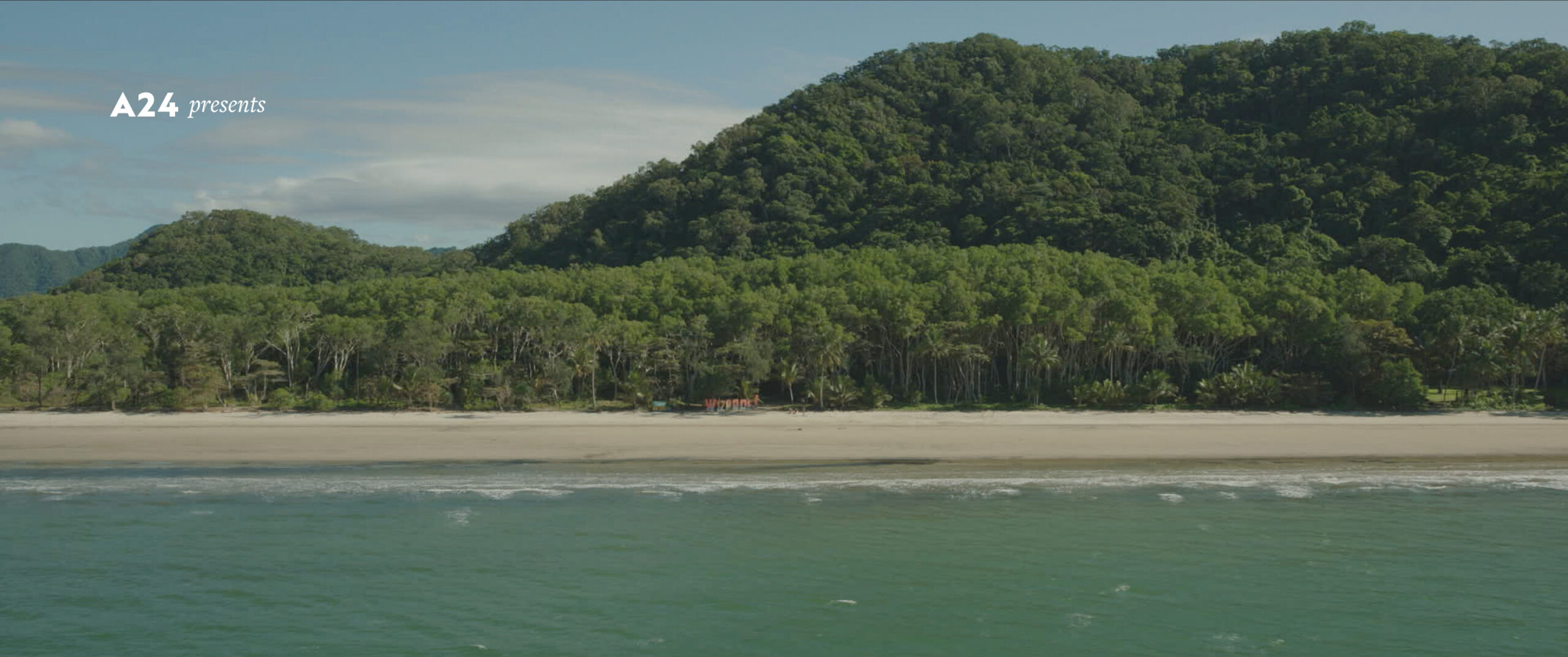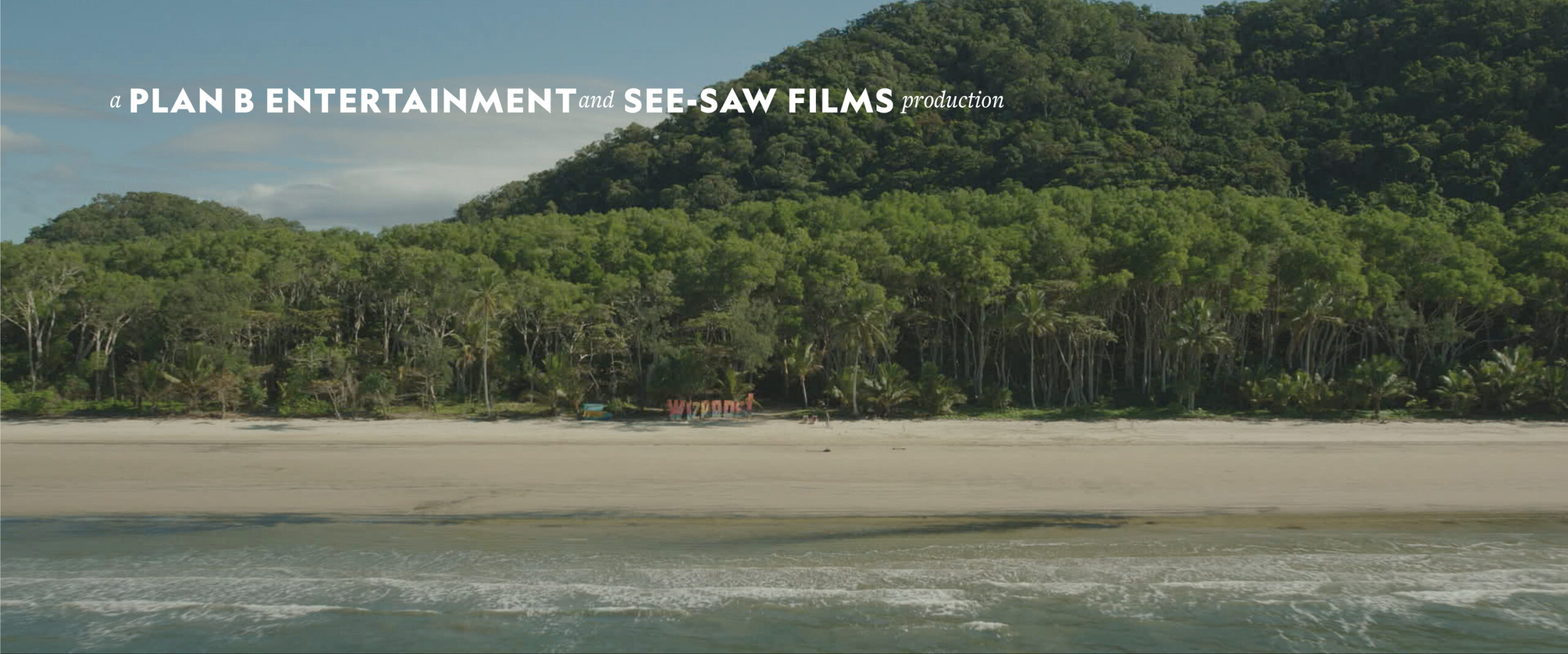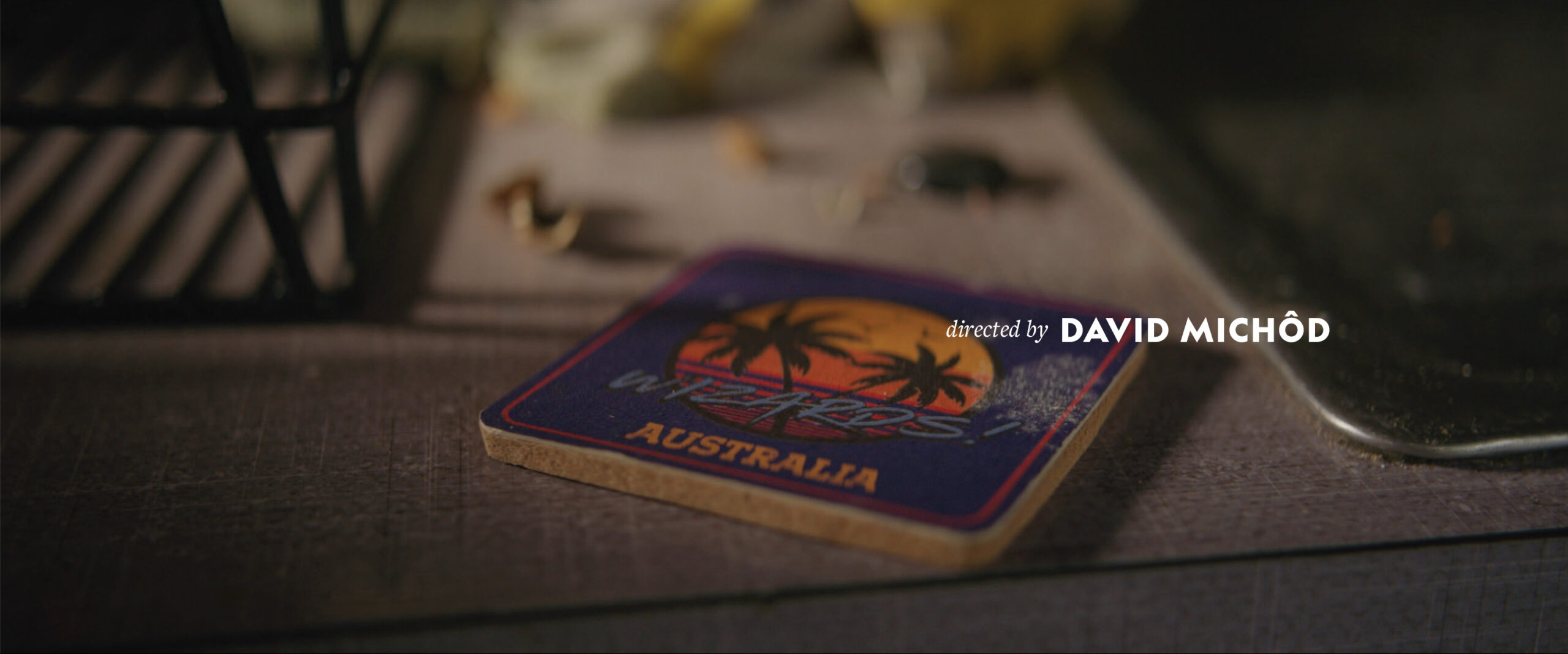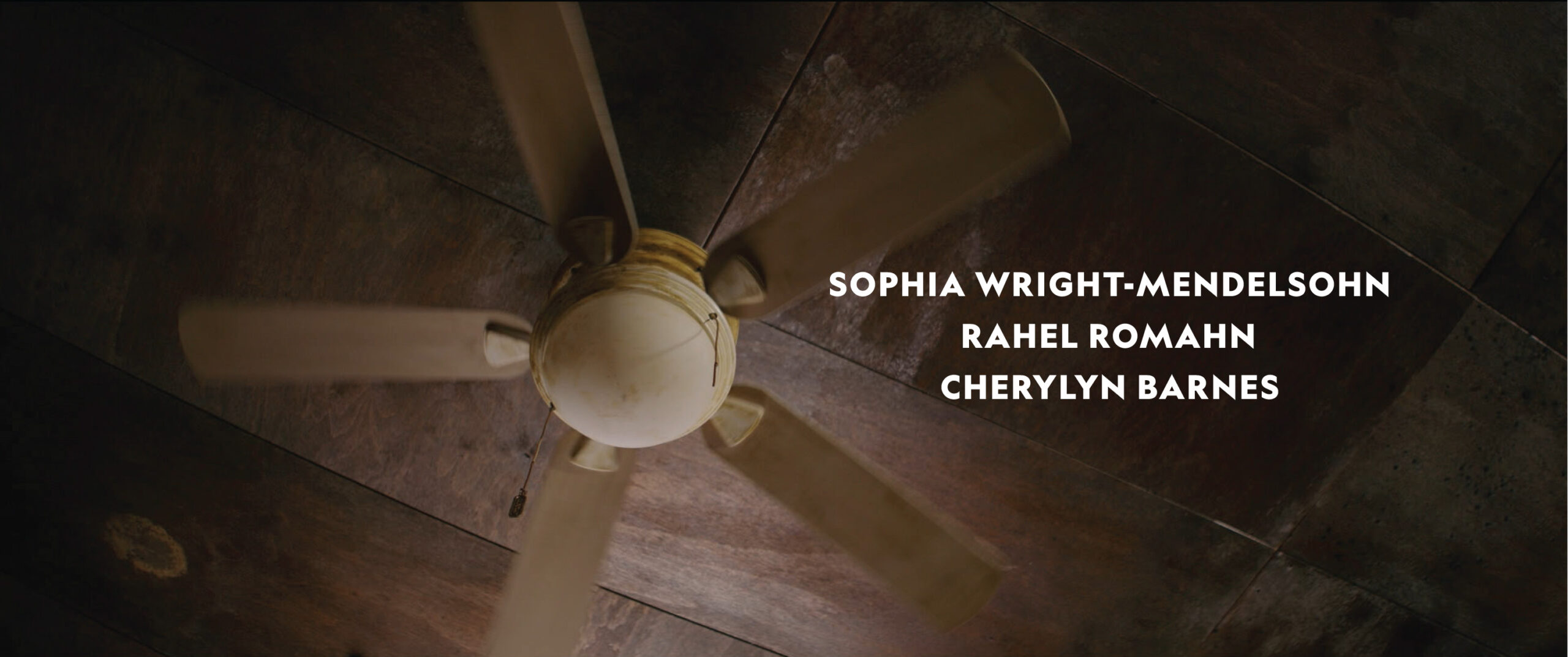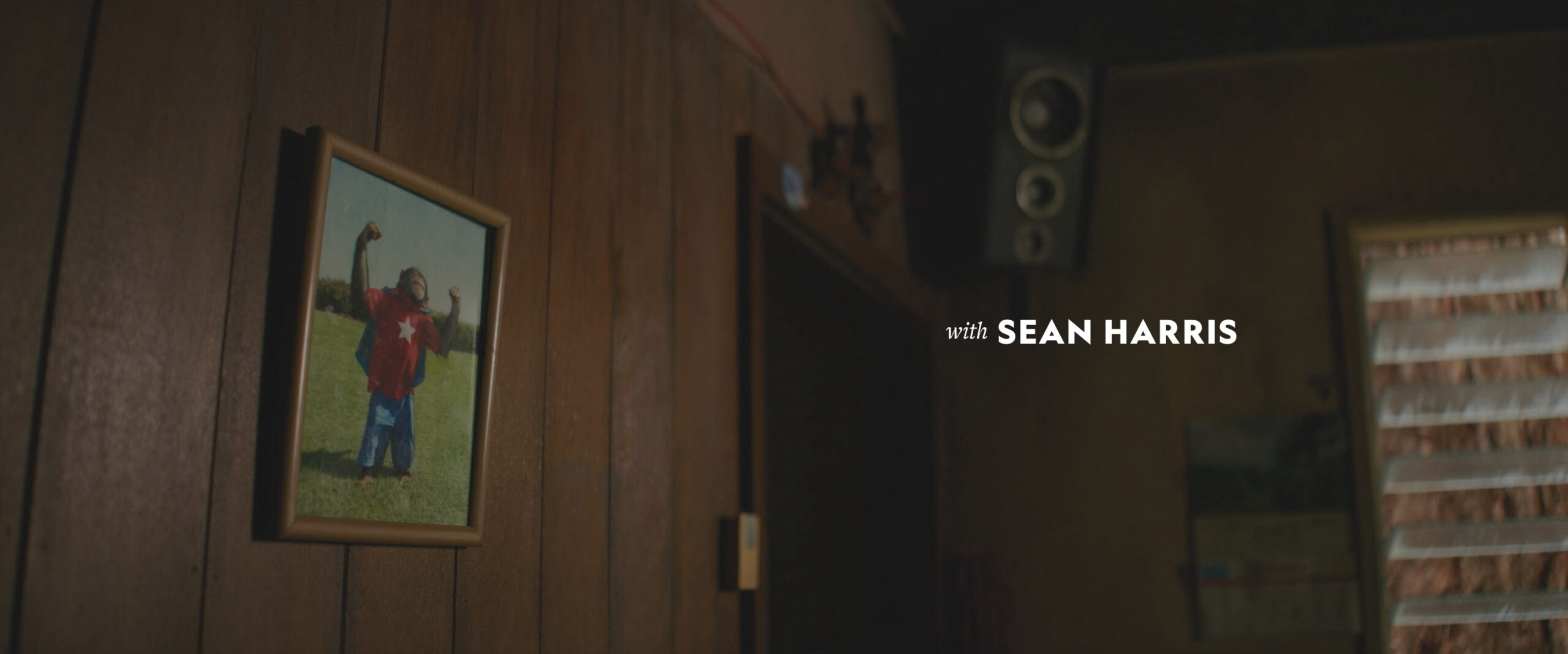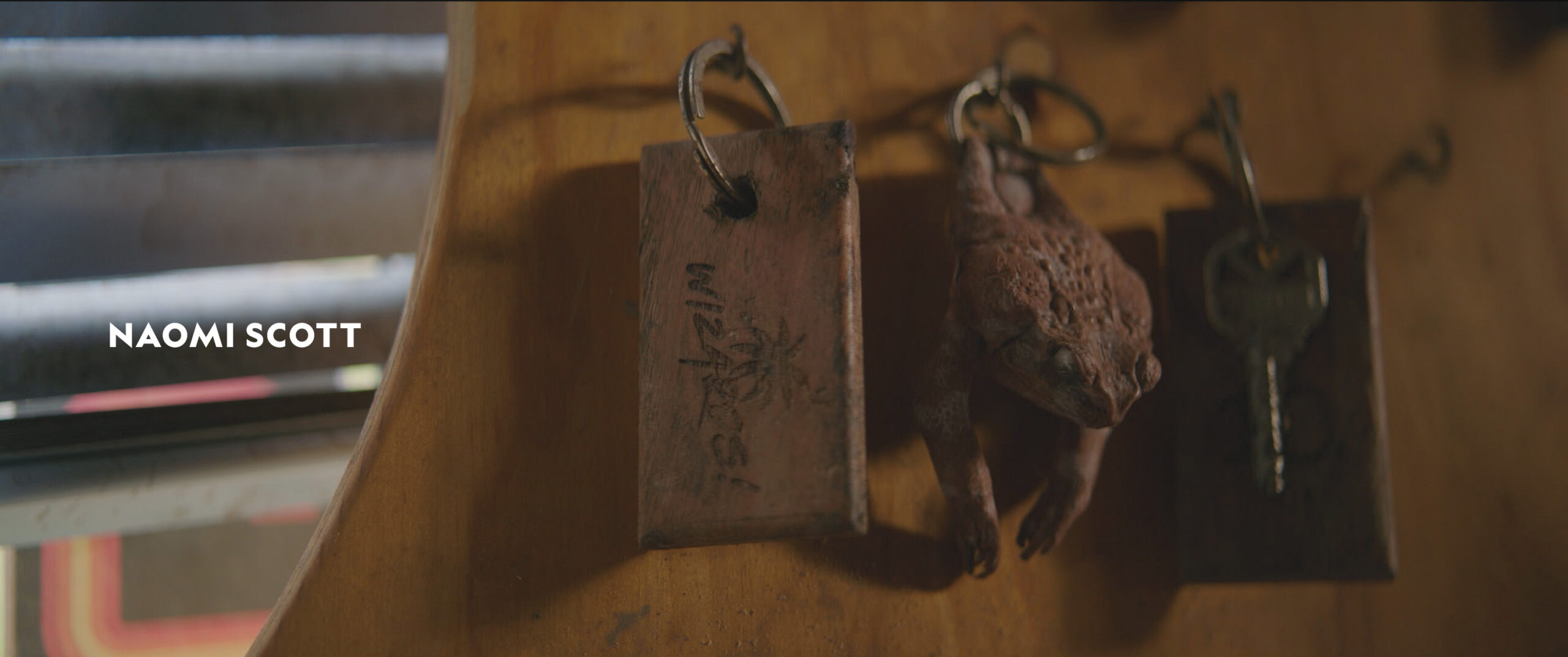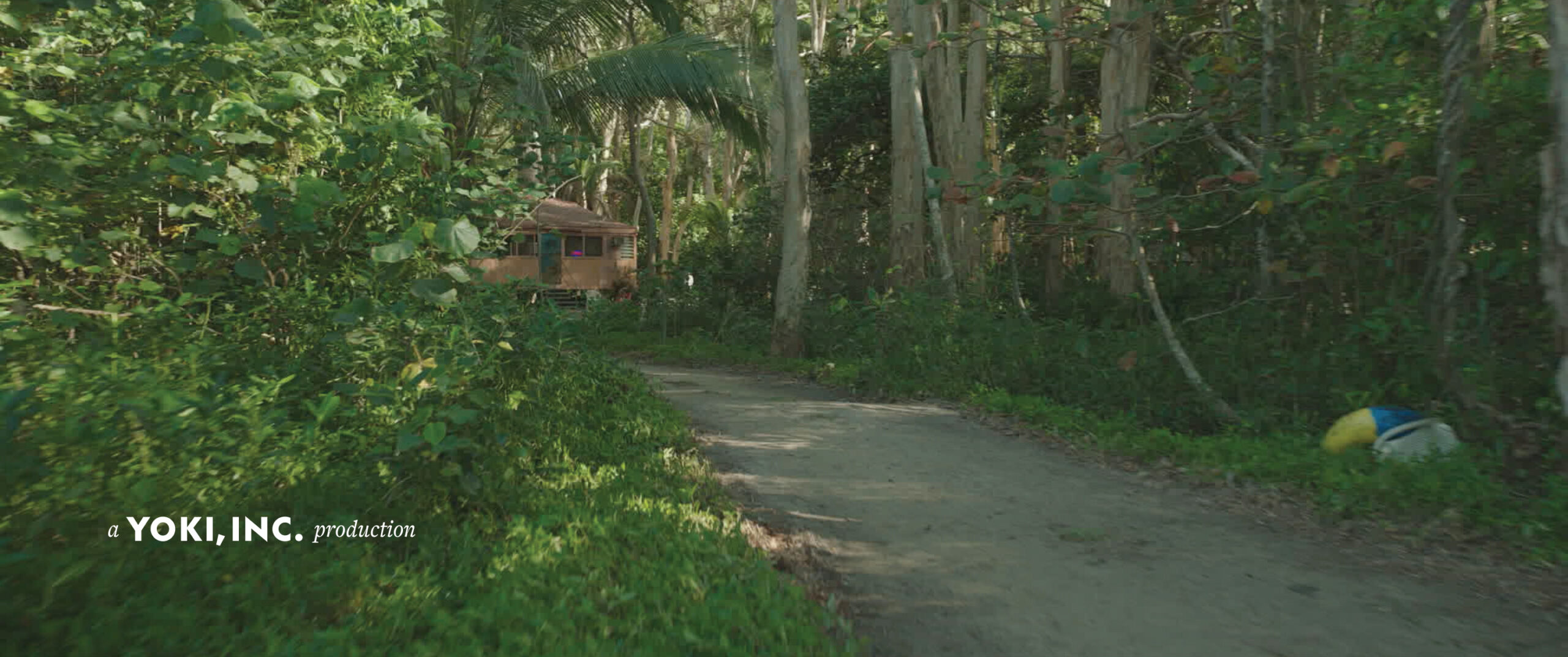
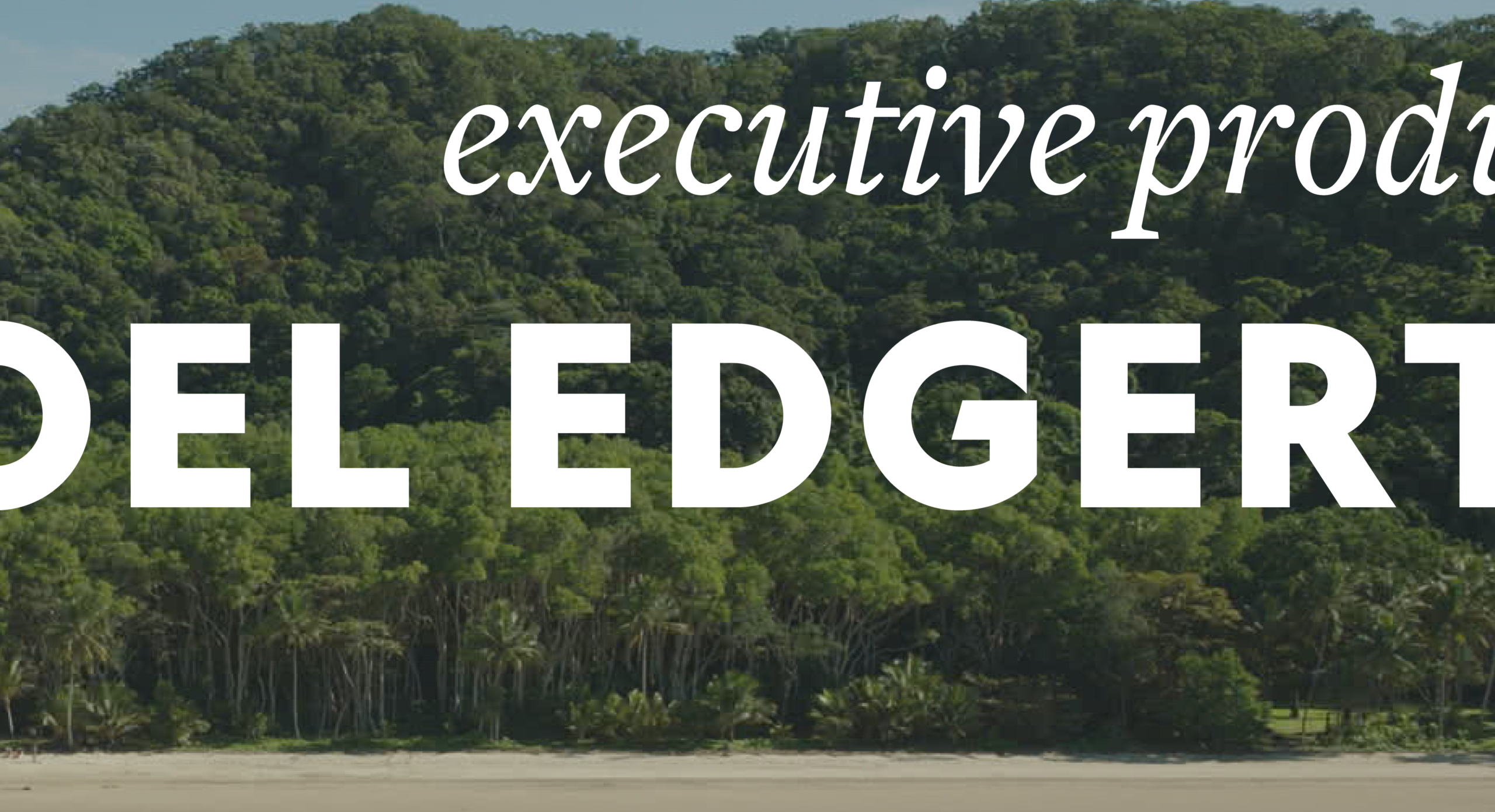
Wizards!
Directed by David Michôd, co-written with Joel Edgerton and featuring Orlando Bloom, Wizards! tells the entertaining tale of two unlucky beach bar operators who find stolen loot, only to find themselves in big trouble.
The titling for this film involved two primary families – Freight and Geograph, set to reflect the horizontal qualities of the long beaches of tropical Northern Queensland.